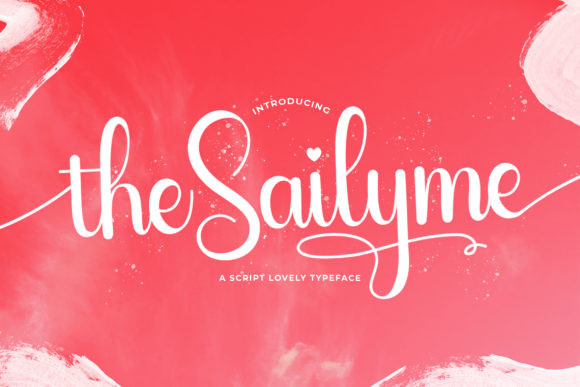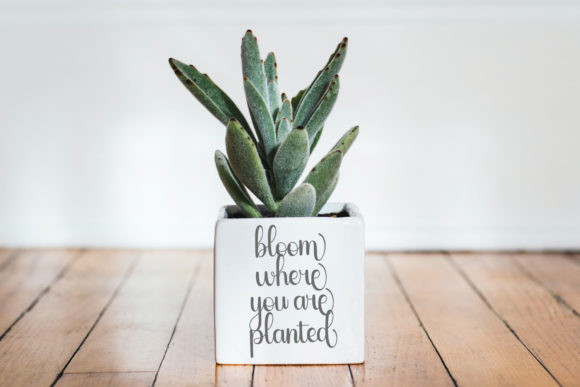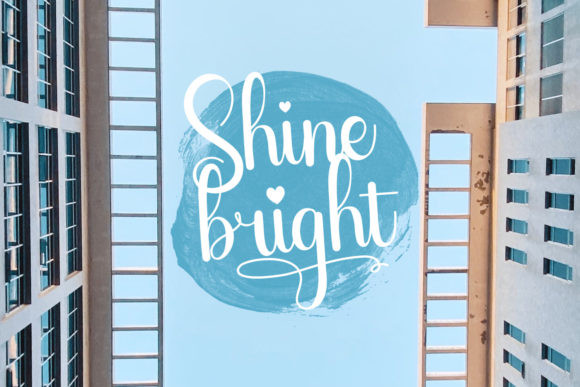
Sailyme Font
Sailyme is a romantic and delicate script font that has complimentary heart and swirly swashes that make it perfect for wedding invitations, greeting cards, and valentine’s day crafts.